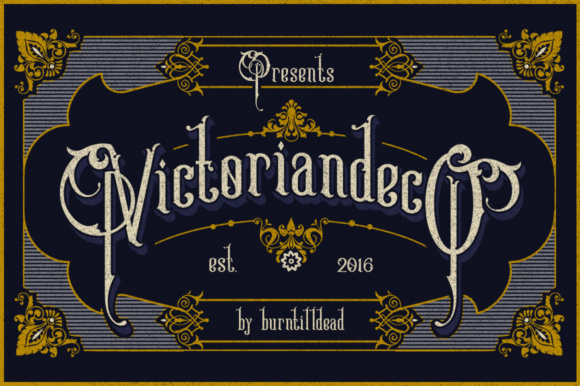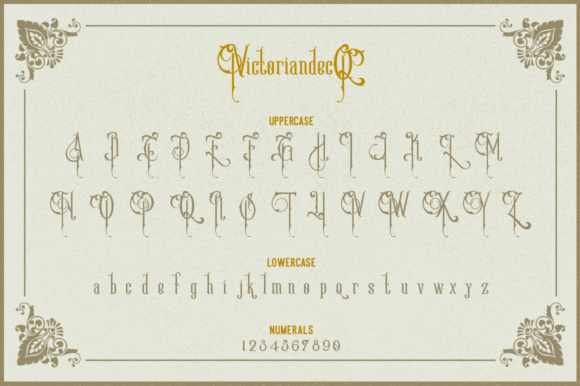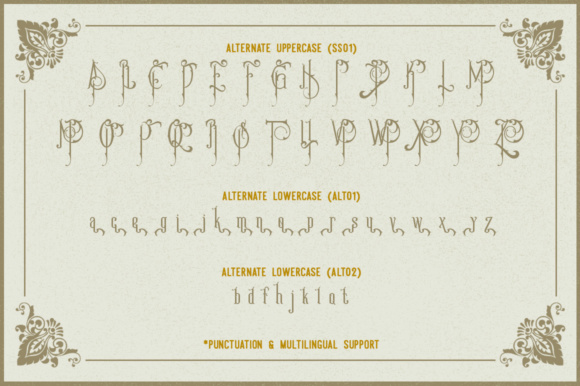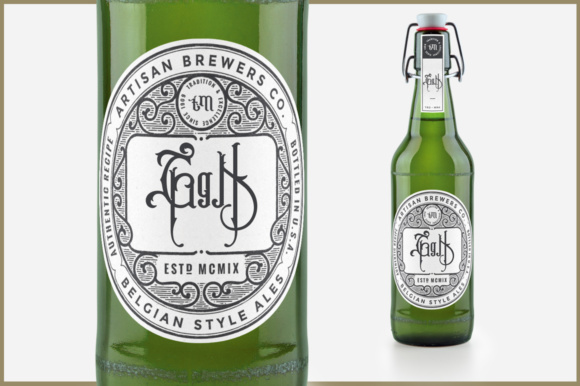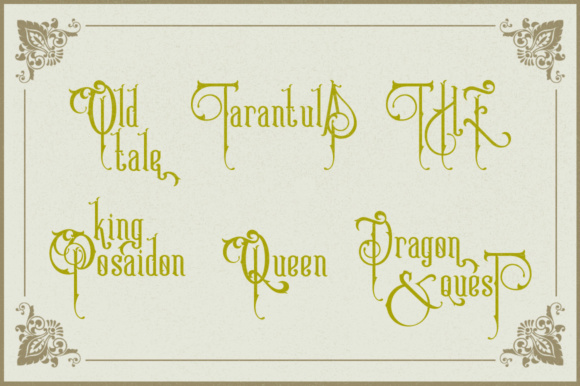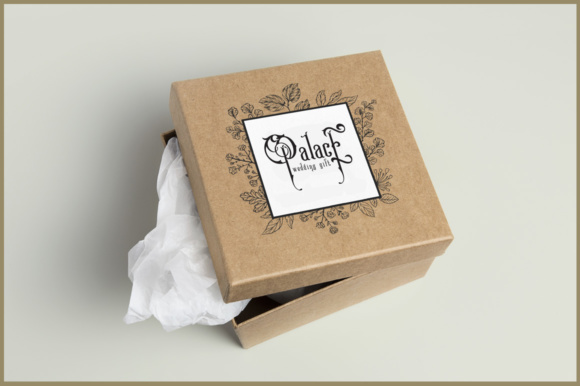
Victoriandeco is a jaw-droppingly gorgeous Victorian inspired font, perfect for a wide range of typographic designs. The inspiration derives specifically from the period of Queen Victoria’s reign from1837-1901, and can be used in period piece designs or more modern branded projects.